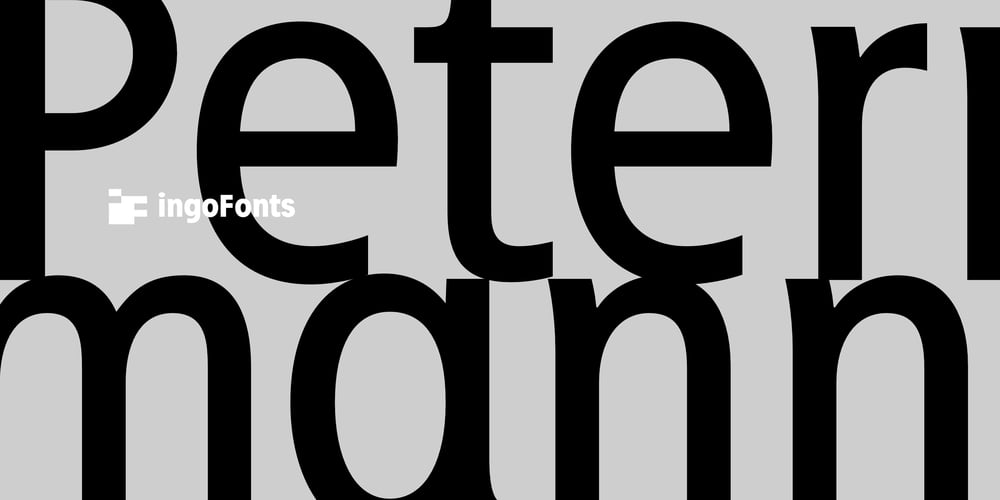
Petermann Font Family was designed by Ingo Zimmermann and published by Ingo. Petermann contains 68 styles and family package options. Petermann: a friendly modelled modern sans serif with open oval shapes.Petermann includes weights from hairline to extra black, widths from condensed to expanded, and true italics.The font family of “Petermann” is a modern sans serif with certain characteristics.The shapes, the basic structure of the letters, are designed very functionally.The stroke weight varies very little, there is almost no contrast between hairlines and main strokes.The round letters emphasize the open oval, their round counters give rhythm to the typeface and make it appear soft and pleasing. The one-storey round design of the two small letters a and g being especially contributive here.An identifying feature of Petermann is the set back foot of the lowercase c and e. Another characteristic is the slanted strokes, the end of which is rounded towards the inside of the letter. Dots are round in Petermann. This also gives the font a certain sense of softness.In contrast to classic sans serifs, some letters in Petermann have slight echoes of serifs, which enhance the reading flow. The most striking are the “feet” of the lowercase letters a d l u. They almost look like particularly short and very bold serifs. But the upper strokes of m n r are also noticeably slightly convex.A font for all occasionsPetermann offers numerous OpenType features and style sets. For example, small caps, fractions, circled numerals and the historic long s are included.There are alternative designs for some letters to give the typeface a completely different overall impression. Conventional two-story variants of lowercase a and g are available (Style Set 04). You can choose the letters d j l u without “feet” or with a straight stroke (Style Set 01), the lowercase f and the german double s with a descender (Style Set 03).Variants of some capital letters can also be selected: the M with straight sides, the I with a serif-like upper stroke, the two-story capital W.Some letters are also available in a more open, lighter design: A B D G P R and, correspondingly, the lowercase e.Several ligatures also enrich the possibilities of Petermann.Language support includes all European languages with the Latin writing system, Cyrillic and Greek, as well as Vietnamese.